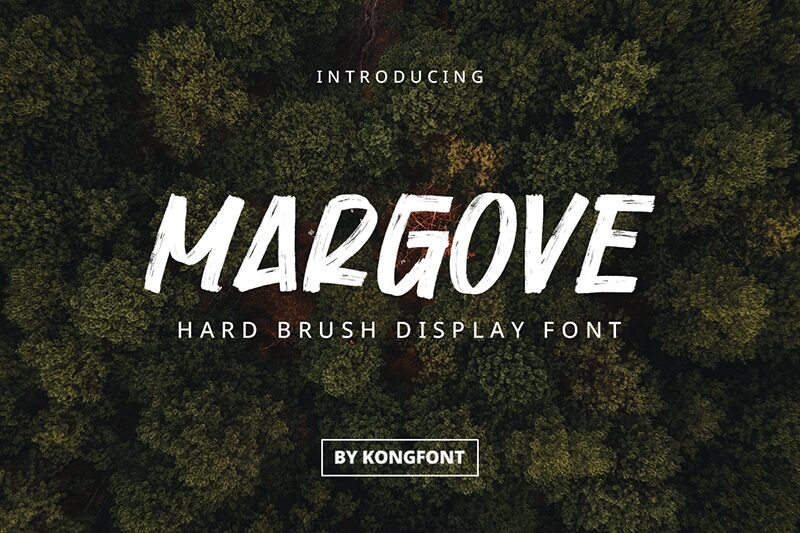
Margove font by Kong Font is a grungy, textured brush typeface with a condensed width. Each letter carries an expressive feel with energetic vibes and a modern aesthetic. Whether for digital applications or print designs, this carefully designed free typeface ensures projects look just as artistic and eye-catching as most would wish for.
Different applications have much to gain from Margove: book covers, literature novels, magazine headers, movie posters and titles, packaging boxes and labels of arts/crafts materials, stationery items like artistic sketchbooks or diaries or pens/pencils…etc.